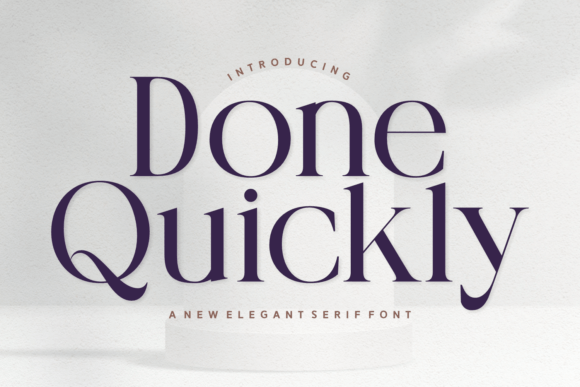
Introducing Done Quickly Font: Elevate Your Designs with Elegance and Sophistication
In the world of design, typography plays a crucial role in conveying the tone and personality of a brand. For designers and crafters seeking to infuse their projects with a touch of elegance and refinement, the Done Quickly font is an exceptional choice. This beautiful serif font is meticulously crafted with soft curves, high contrast strokes, and a sense of effortless sophistication, making it perfect for a wide range of applications.
Characteristics of Done Quickly Font
Done Quickly is characterized by its delicate yet confident character design, which ensures readability while offering artistic flair. The font’s soft curves and high contrast strokes give it a unique and sophisticated look, setting it apart from more traditional serif fonts. Its elegant appearance makes it an ideal choice for designers who want to pair refinement with functionality in their projects.
Perfect for Modern Branding and Design Projects
Done Quickly is specifically designed for modern branding, wedding stationery, editorial layouts, and social media graphics. Its versatility and charm make it suitable for a variety of design applications, from high-end fashion and lifestyle brands to beauty and luxury goods. Whether you’re creating a brand identity, designing wedding invitations, or crafting engaging social media content, Done Quickly is sure to bring a touch of sophistication and elegance to your designs.
- Elegant Serif Design: Done Quickly boasts a classic serif design with a modern twist, making it perfect for designs that require a touch of sophistication.
- Soft Curves and High Contrast Strokes: The font’s soft curves and high contrast strokes give it a unique and refined appearance, setting it apart from other serif fonts.
- Readability and Artistic Flair: The delicate yet confident character design ensures readability while offering artistic flair, making it perfect for a wide range of design applications.
- Versatility: Done Quickly is suitable for a variety of design projects, from branding and wedding stationery to editorial layouts and social media graphics.
- High-End Fashion and Lifestyle Brands: The font’s elegant appearance makes it an ideal choice for high-end fashion, lifestyle, and beauty brands seeking to convey a sense of luxury and sophistication.
Use Cases for Done Quickly Font
Done Quickly is a versatile font that can be used in a variety of design applications, including:
- Wedding Stationery: Create beautiful wedding invitations, save-the-date cards, and wedding programs with a touch of elegance and sophistication.
- Branding and Identity: Establish a strong brand identity with Done Quickly, perfect for high-end fashion, lifestyle, and beauty brands.
- Editorial Layouts: Add a touch of refinement to your editorial layouts, including magazines, newspapers, and online publications.
- Social Media Graphics: Create engaging social media graphics, including Instagram posts, Facebook graphics, and Twitter headers, with a touch of elegance and sophistication.
In conclusion, Done Quickly is an exceptional font that offers a unique blend of elegance, sophistication, and versatility. Its delicate yet confident character design, soft curves, and high contrast strokes make it perfect for a wide range of design applications. Whether you’re a designer or crafter seeking to elevate your projects with a touch of refinement, Done Quickly is an ideal choice. With its high-end fashion, lifestyle, and beauty brand appeal, this font is sure to bring charm and sophistication to every design.